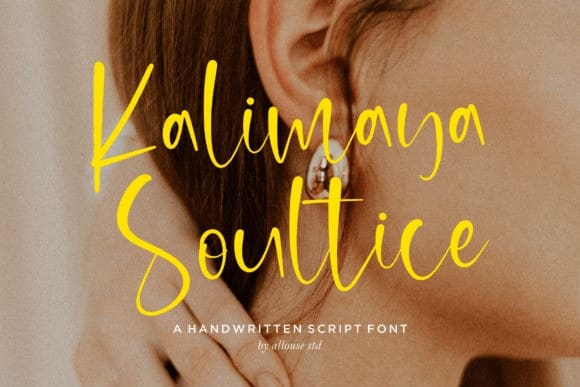
Kalimaya Soultice Font
Kalimaya Soultice Font, A Handwritten Script Font, is perfect for product packaging, branding project, megazine, social media, wedding, or just used to express words above the background.